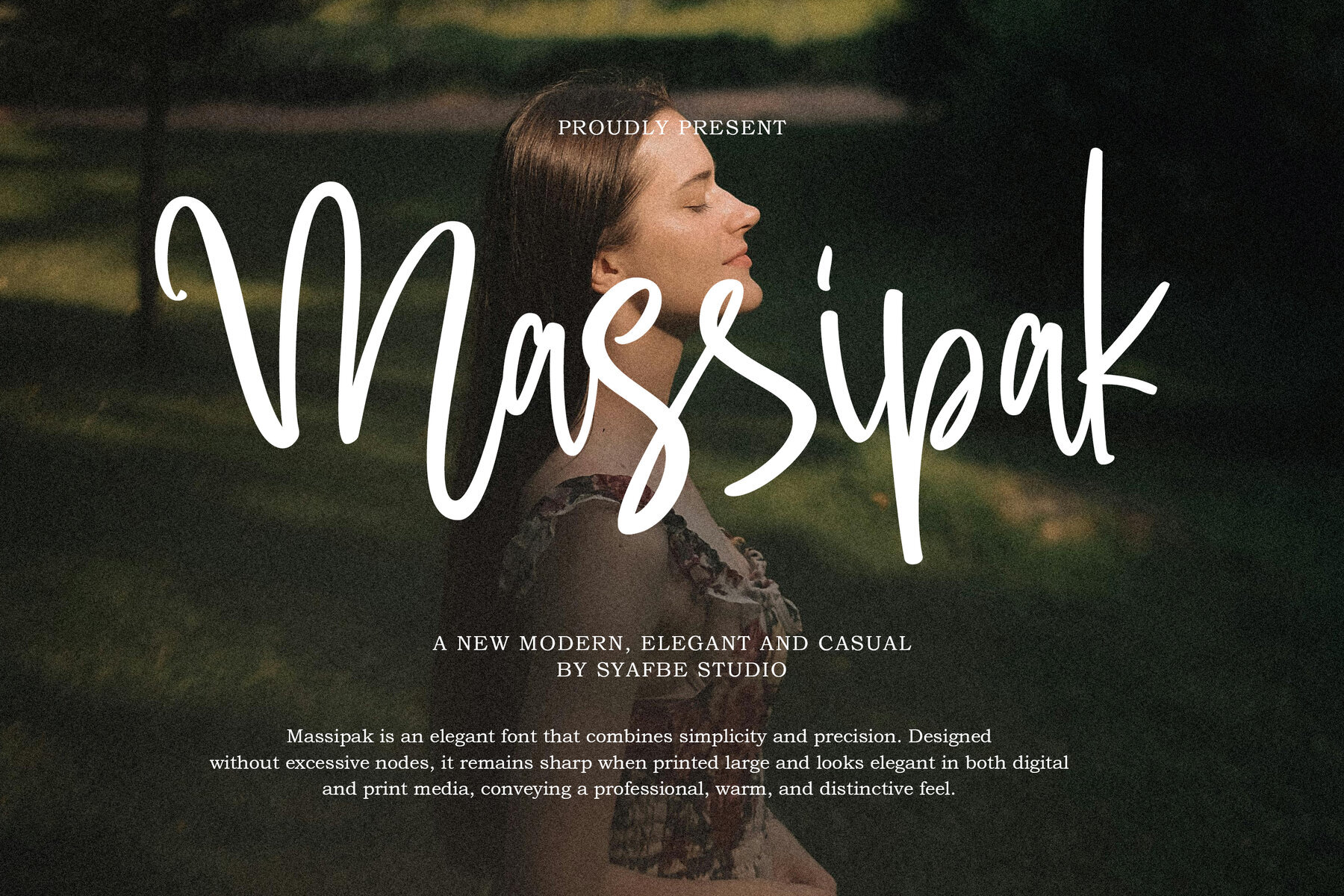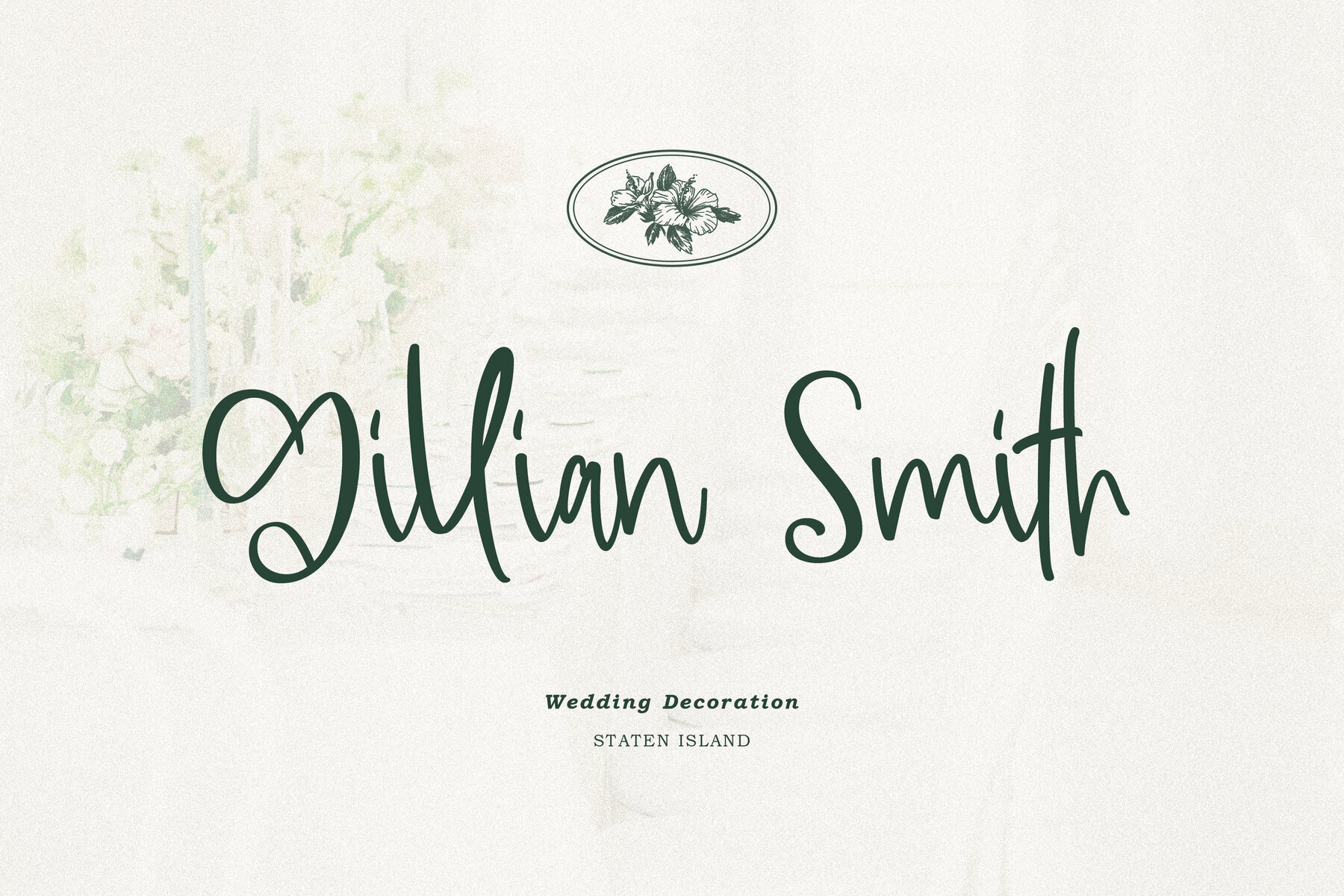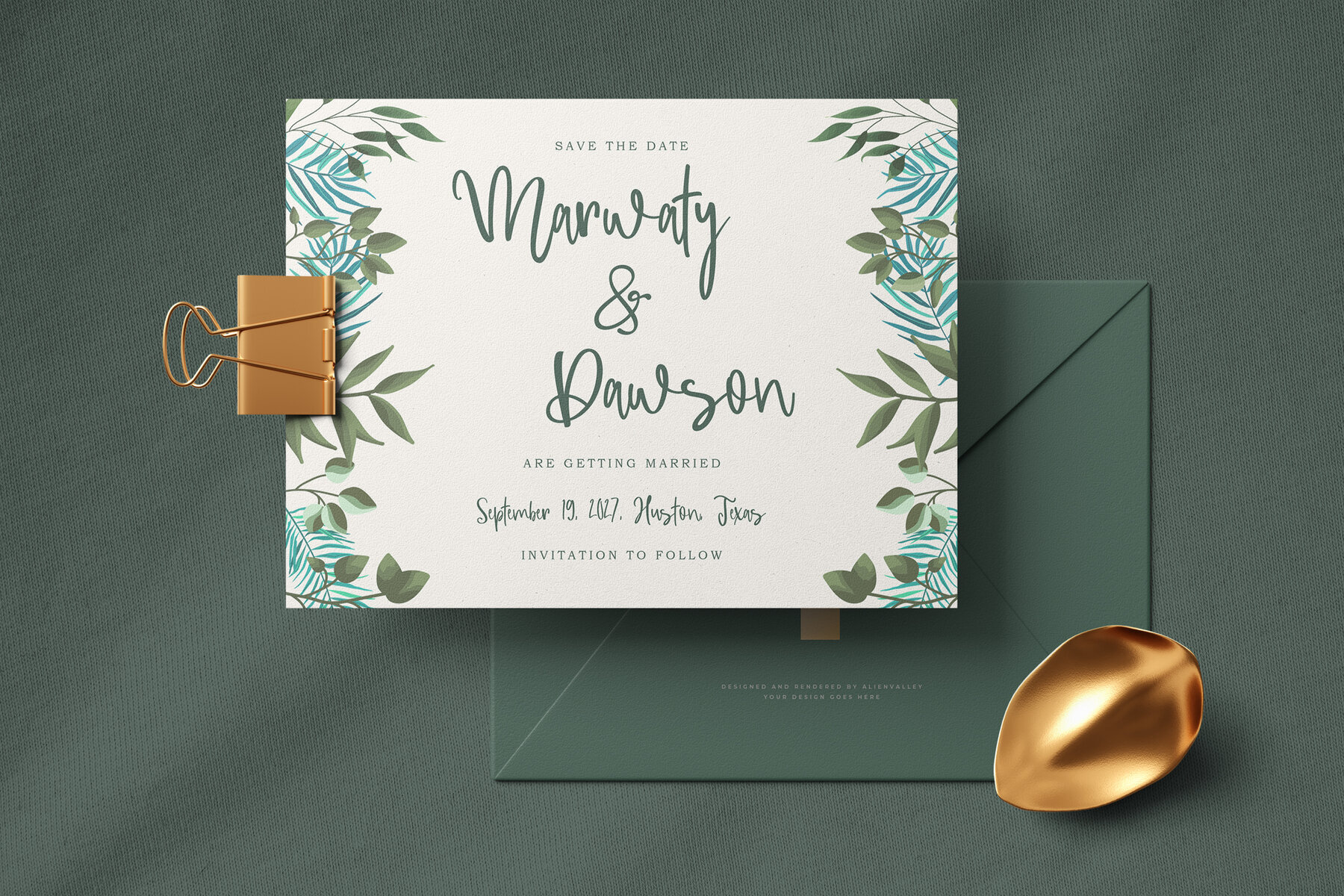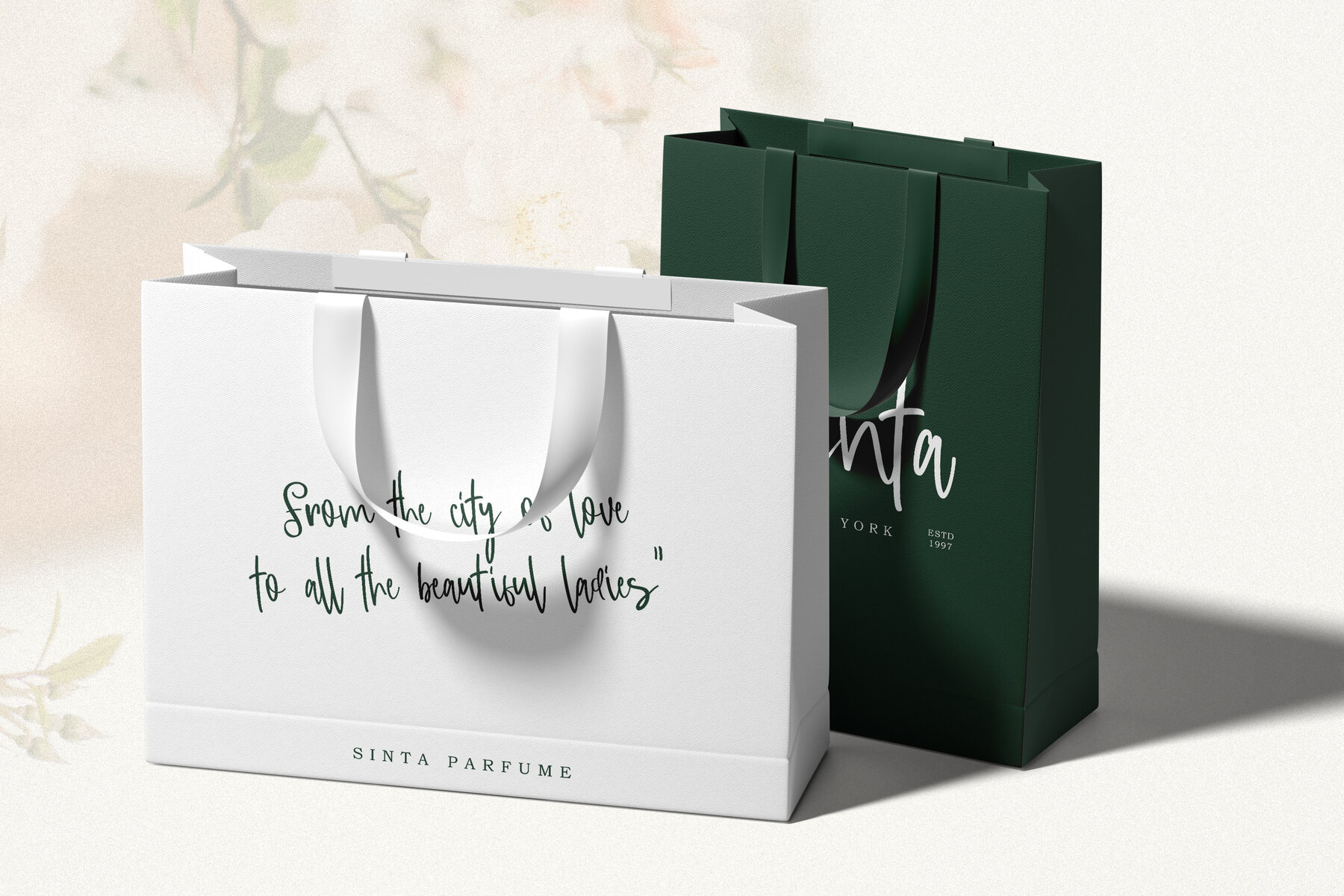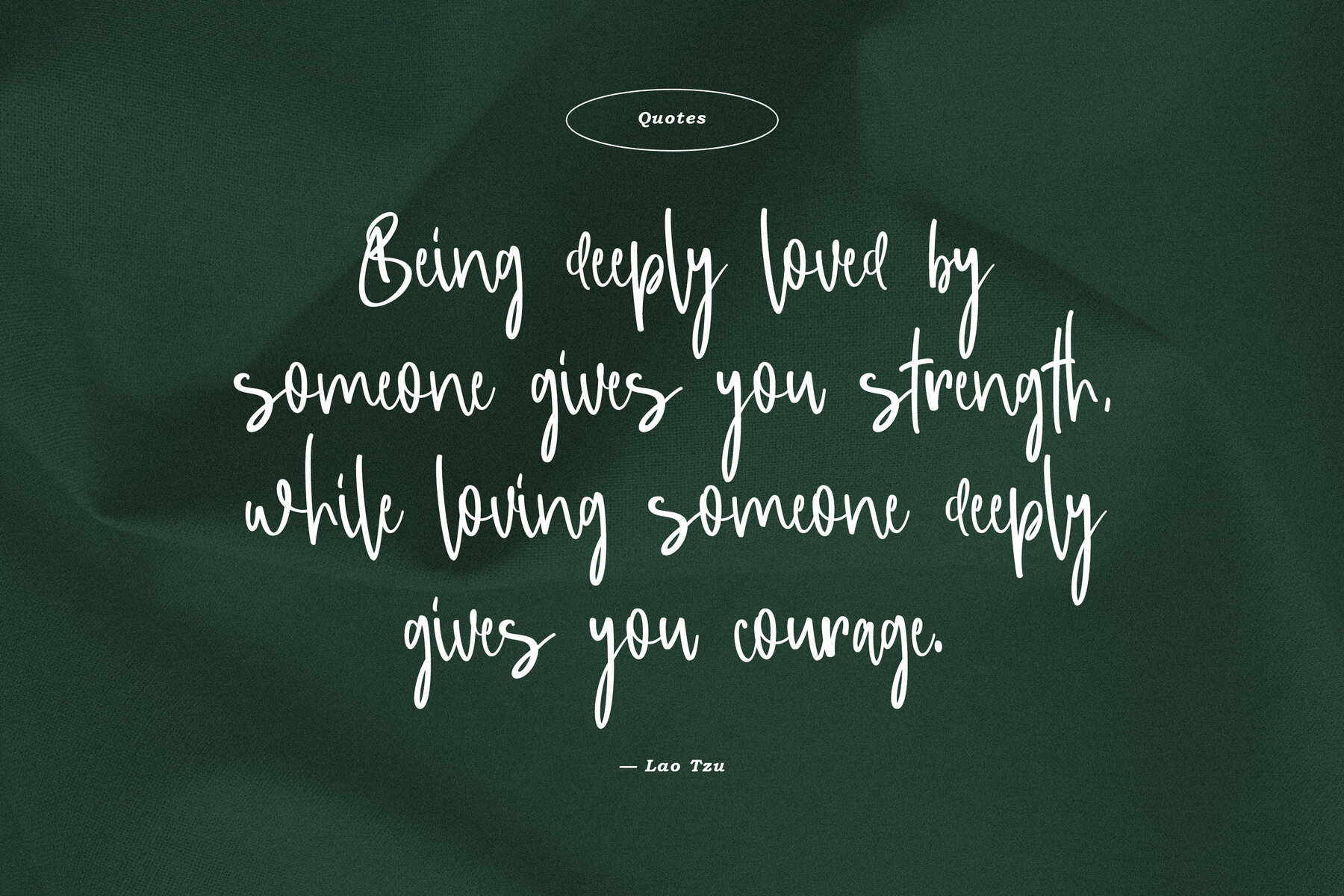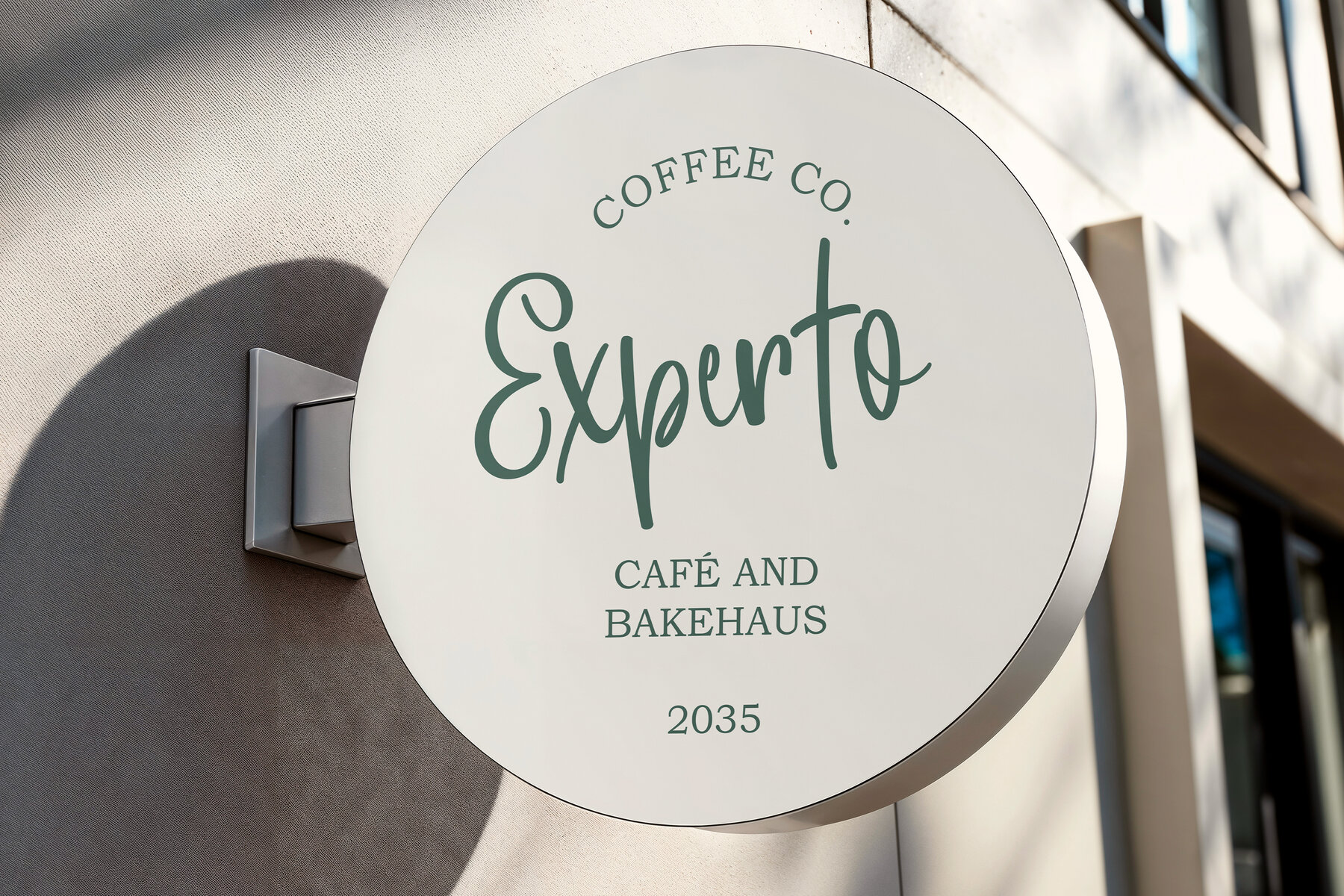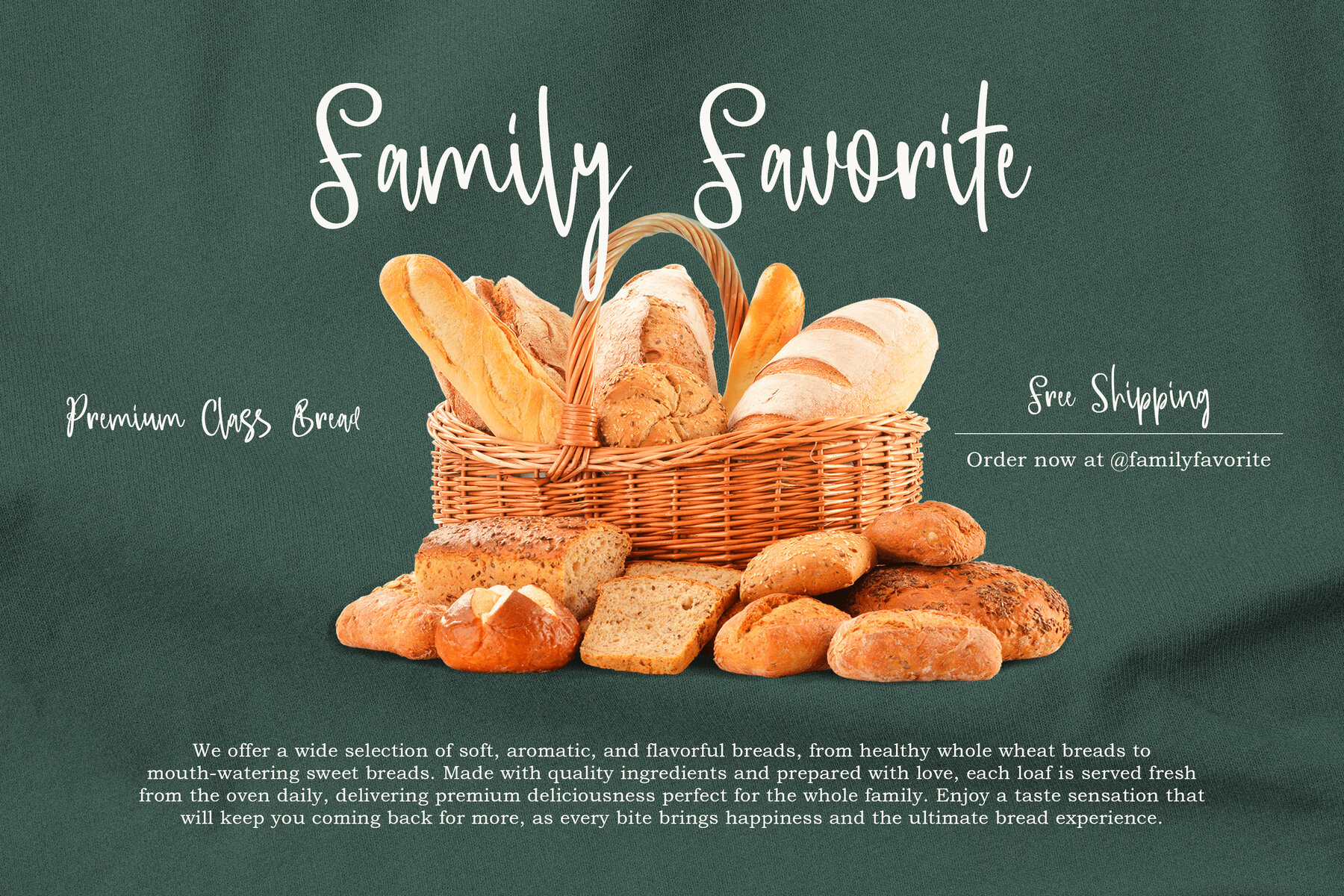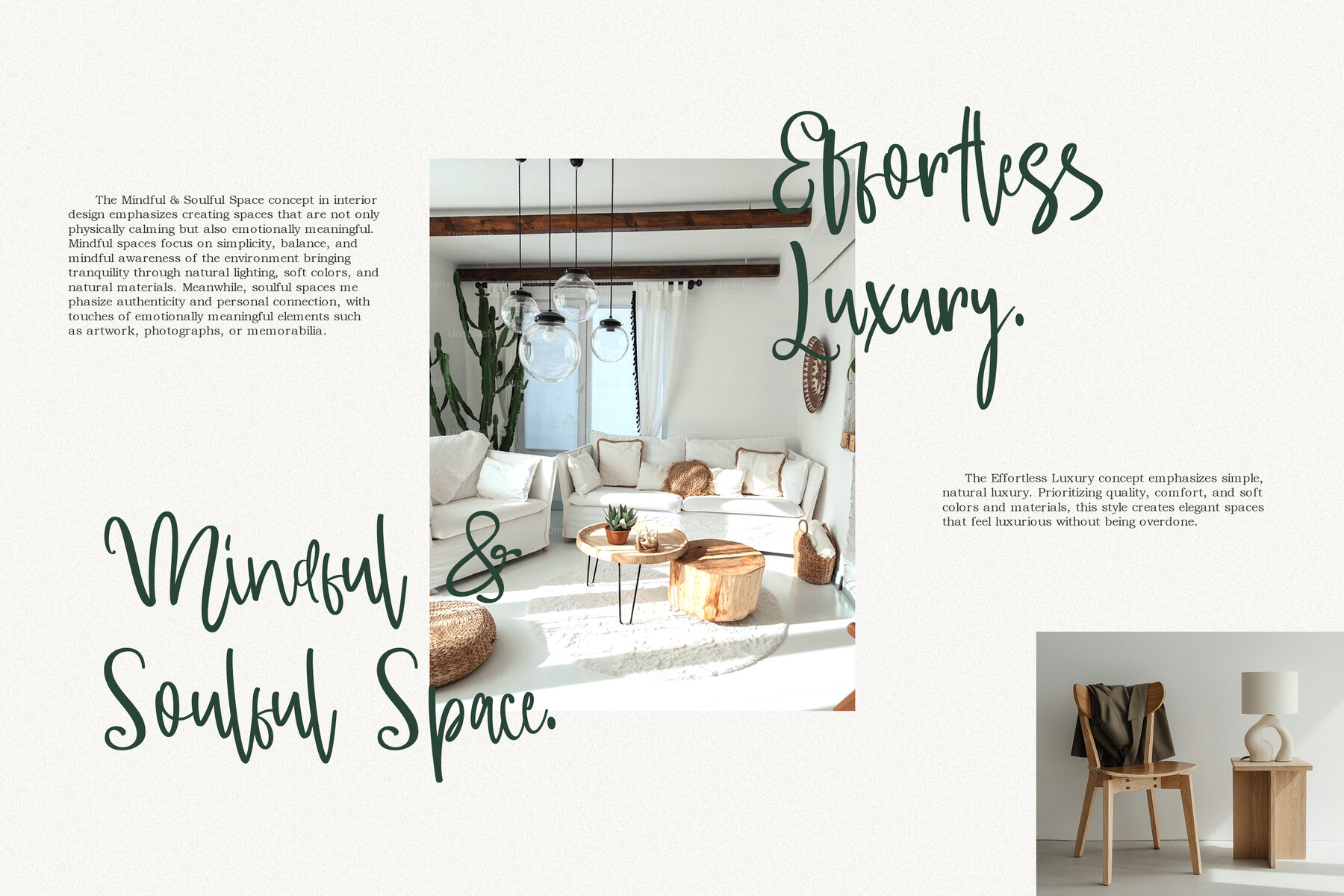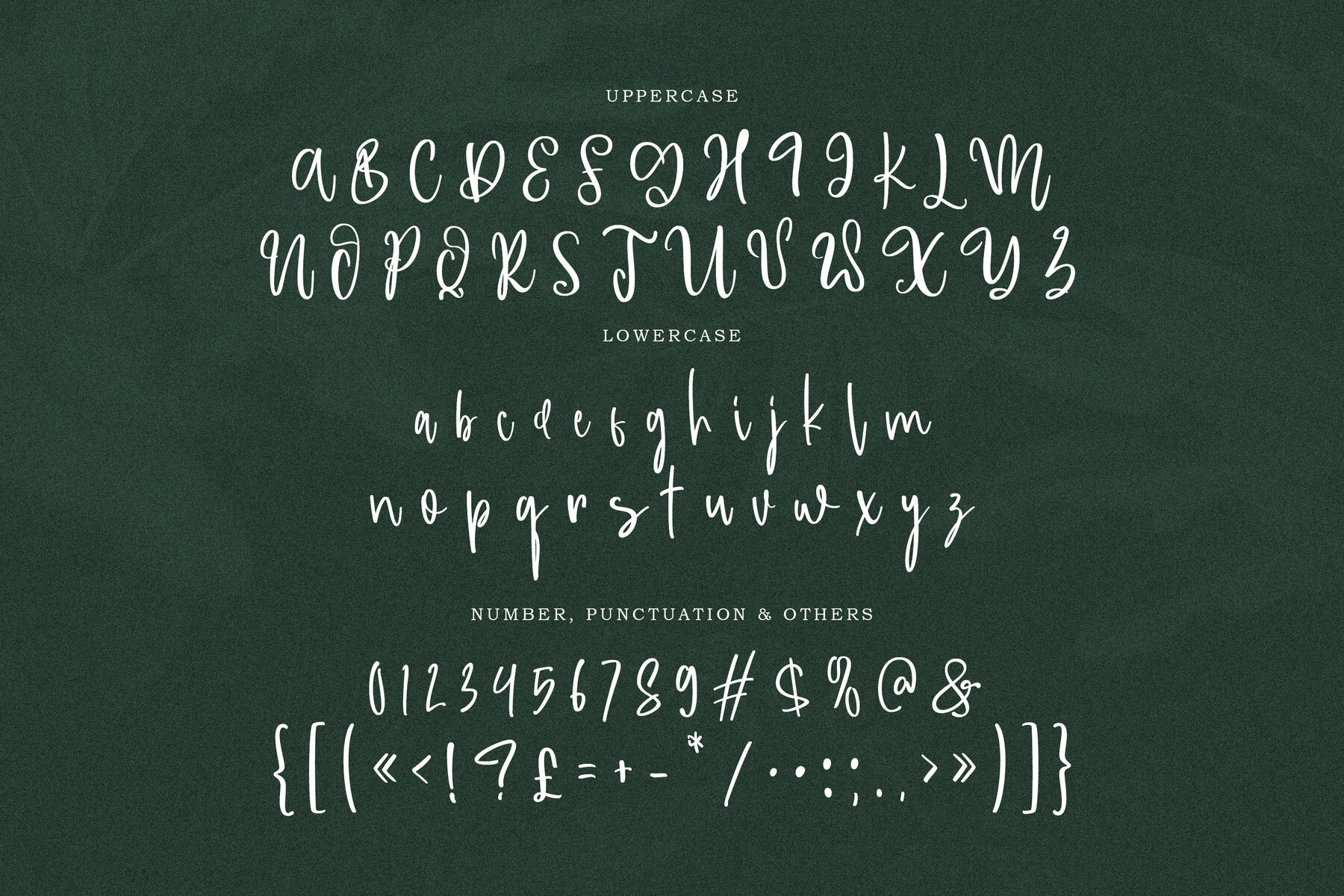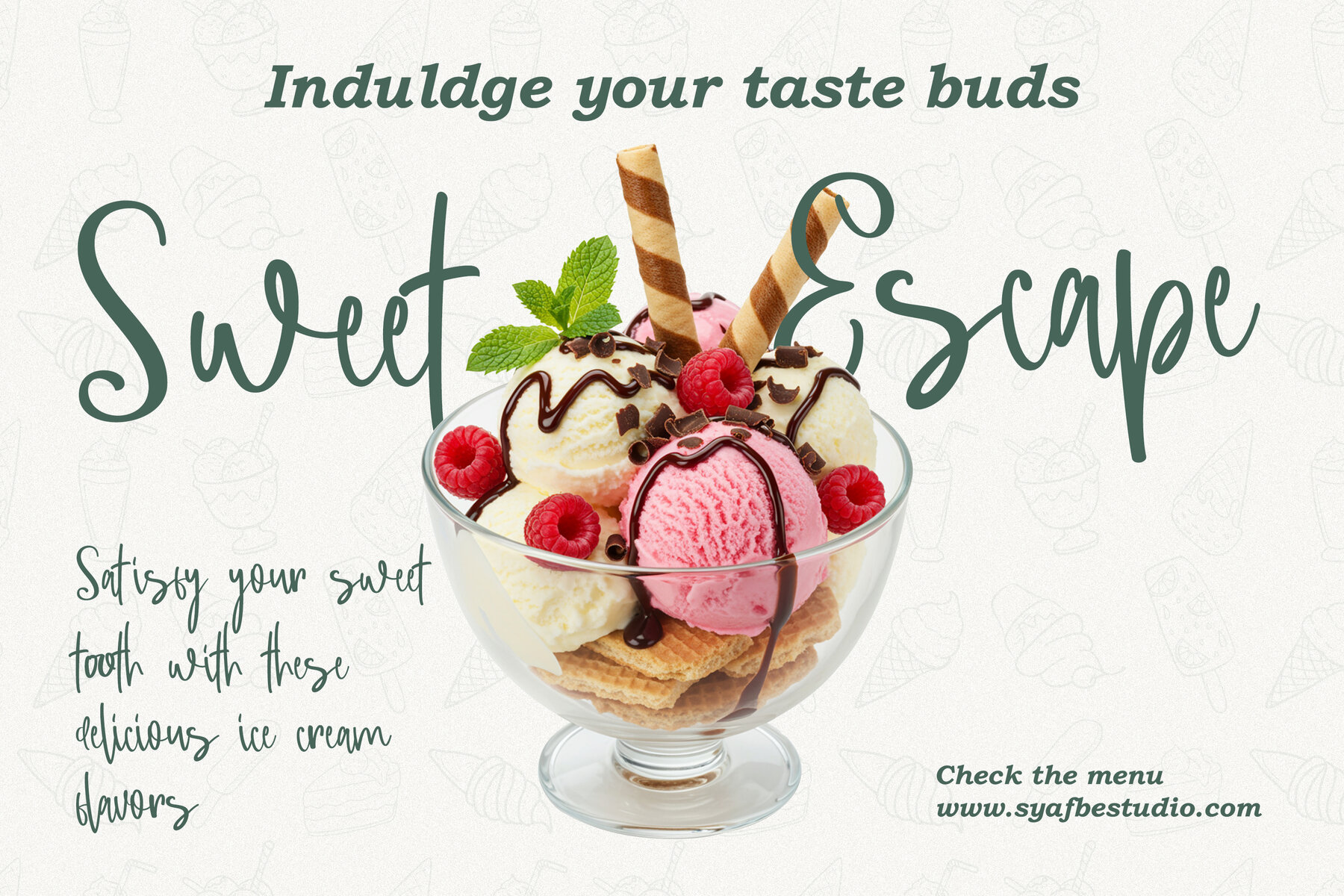
Massipak Font
Massipak Regular
Massipak demonstrates a commitment to artistic simplicity, where every curve finds equilibrium between bold clarity and gentle sophistication. Crafted with attention to detail, the font achieves a refined aesthetic through its balanced strokes and clean letterforms. Its streamlined structure, free of unnecessary nodes, ensures sharpness and consistent quality—whether displayed on a digital screen or in large-scale print. Blending a graceful handwriting style with modern polish, Massipak lends a subtle sense of warmth and professionalism to your projects. The dynamic flow brings character and readability to both minimalistic designs and expressive visuals. Ideal for logos, product packaging, invitations, and social media graphics, this font offers versatility to project a distinctive and unified brand identity across platforms.Massipak: Artistic Simplicity Meets Modern Design